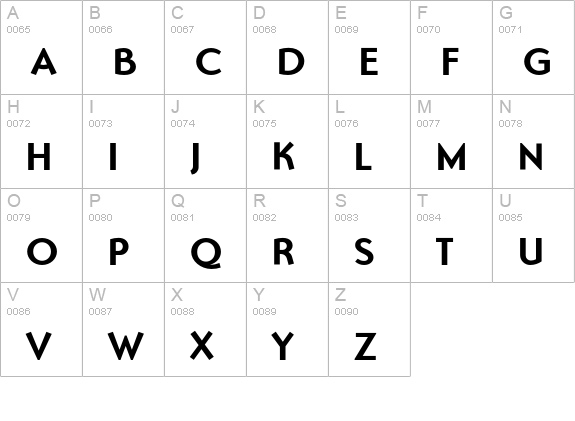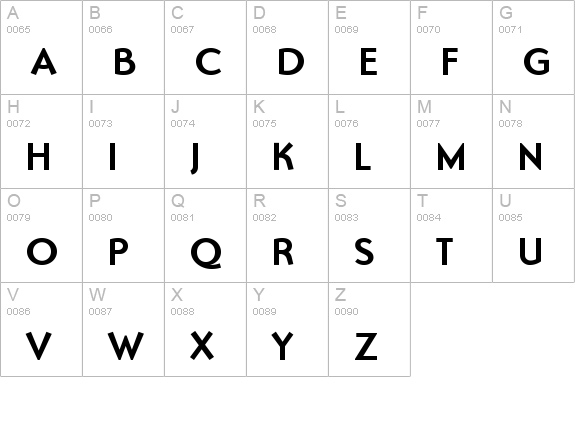
Introducing OttomatBold font - a modern and sleek typeface that exudes confidence and style. This versatile font is perfect for creating eye-catching designs, from logos to branding materials to social media graphics. With its bold and dynamic appearance, OttomatBold commands attention and makes a strong visual impact. What sets OttomatBold apart is its unique blend of sophistication and approachability, making it suitable for a wide range of design projects. Whether you're working on a fashion magazine, a tech startup's website, or a trendy coffee shop's menu, OttomatBold will elevate your design and make a lasting impression on your audience. And the best part? OttomatBold is freely available to download at FontsMarket.com. This means you can easily access this premium font without breaking the bank, making it a valuable addition to your font library. Don't miss out on the opportunity to enhance your designs with OttomatBold's bold and contemporary style - download it today and take your creative projects to the next level.